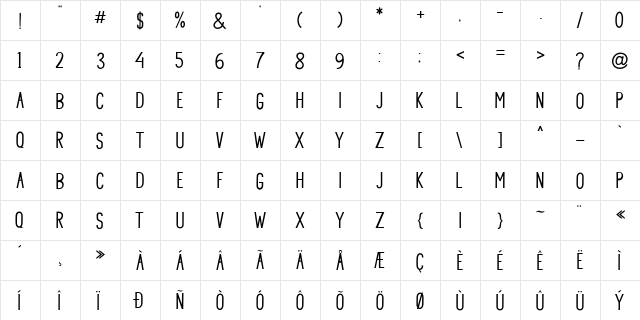
Princella Sans Regular
| Foundry | Amarlettering_Kamaruddin |
| Designer | Amarlettering_Kamaruddin |
Design Context for Princella Sans Typeface
Princella Sans offers clean, dependable letterforms without strong stylistic allegiance, making it a practical choice for designers who need flexibility.